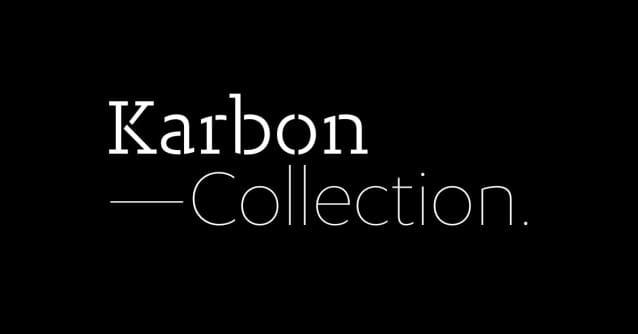
Karbon Collection Font Family
Karbon Collection Font Family is an open, geometric sans serif with a contemporary spartan finish. It is an exploration of Paul Renner’s reductionist Futura concept channelled through the proportions of Eric Gill’s eponymous sans, with a slight nod towards Jan Tschichold’s Uhertype sans-serif. Karbon Slab Stencil extends the spartan linework into slab-serif territory. Its logical program of breaks references the industrial heritage of stencilled letterforms.